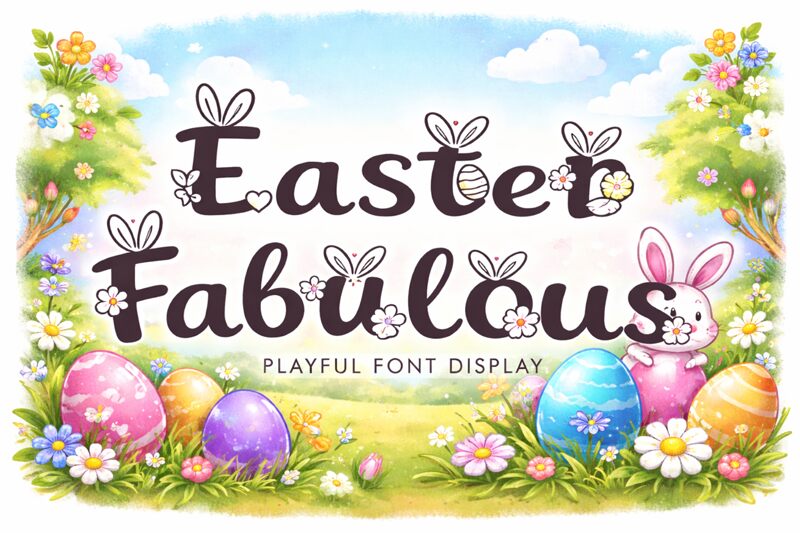
Easter Fabulous font family by Yoga Letter is a cheerful and lively collection of holiday fonts comprising two styles. The free font family embraces a festive style that brings together elements of whimsy and decoration to enhance your designs. It is themed toward modern occasions with an expressive, engaging, and eye-catching appearance that will make your texts come alive.
The versatile Easter Fabulous can be tamed and used marvelously for calendar designs, celebration cards for various occasions, invitation cards, and more. Use it for personal projects like quotes, branding, product labels, flyers, website fonts, or social media. Put it on packaging projects including gift wrapping, product packaging, or gift ideas wrapping, and prepare them to magically spread the holiday spirit all around.